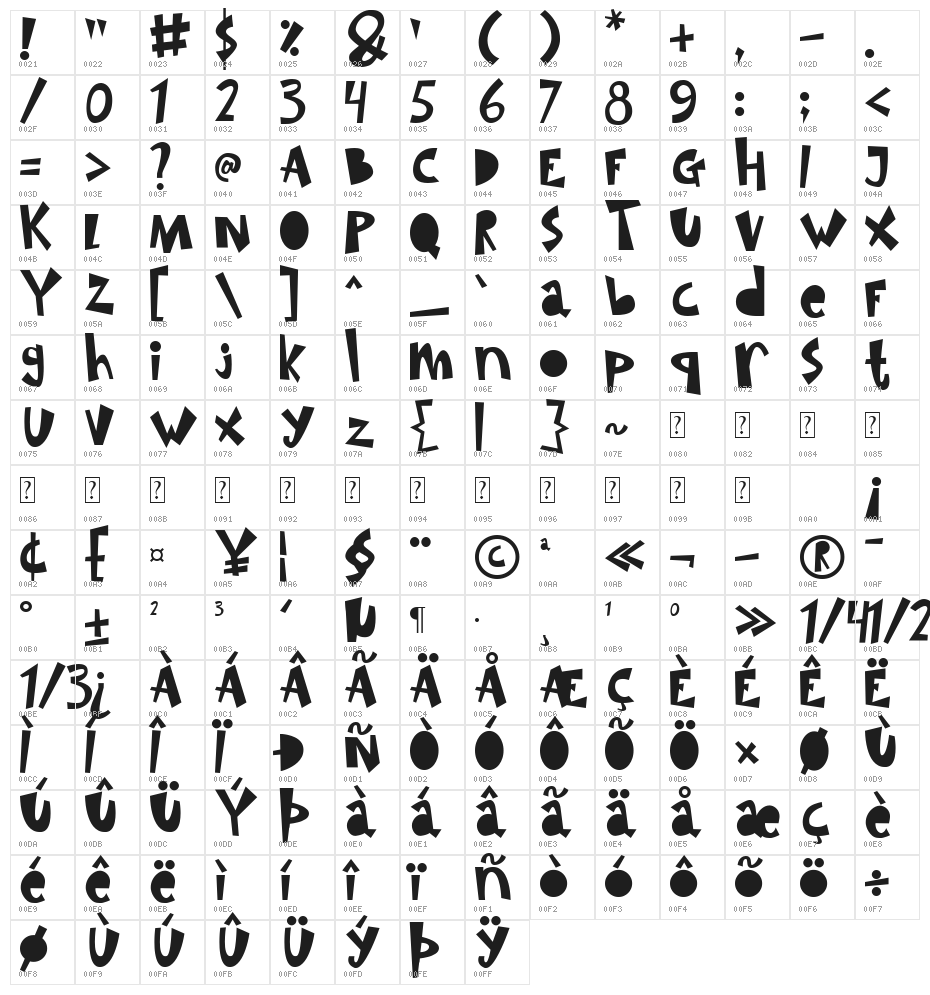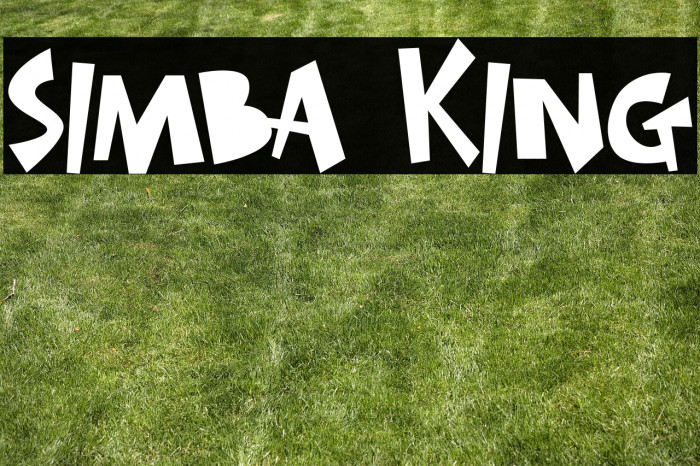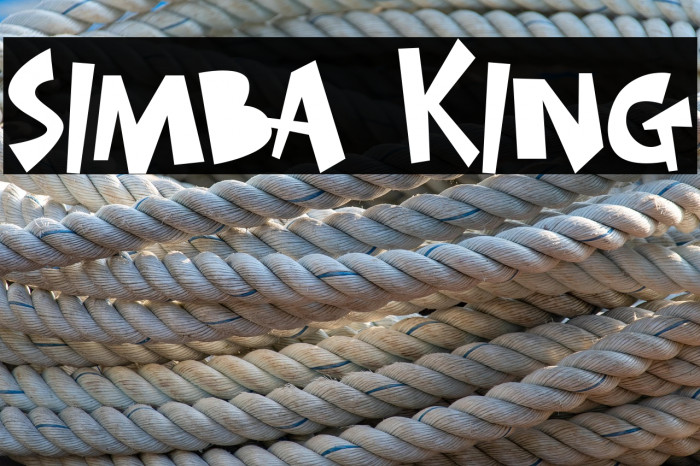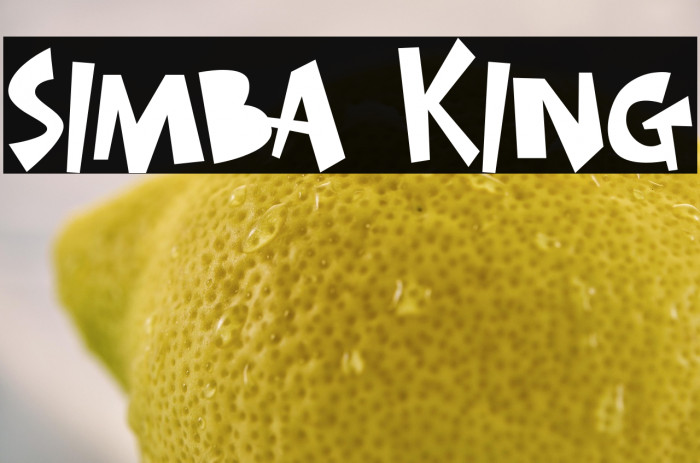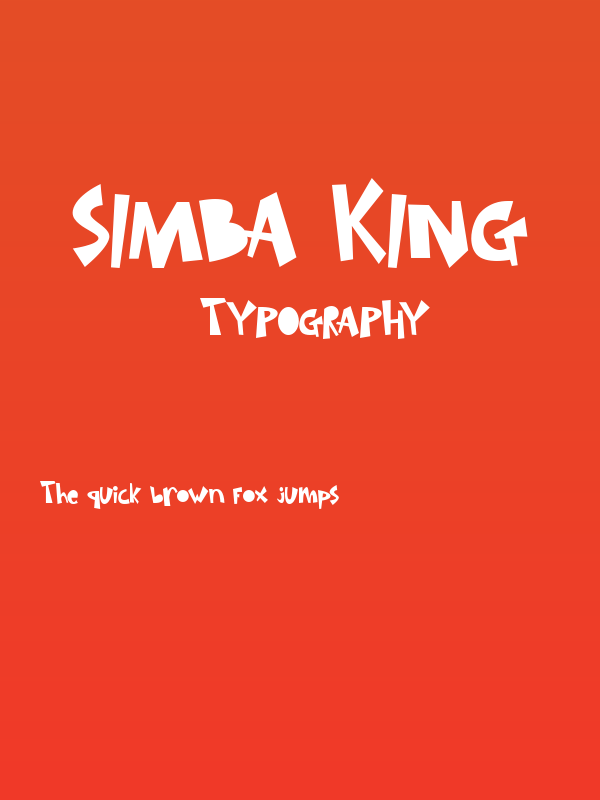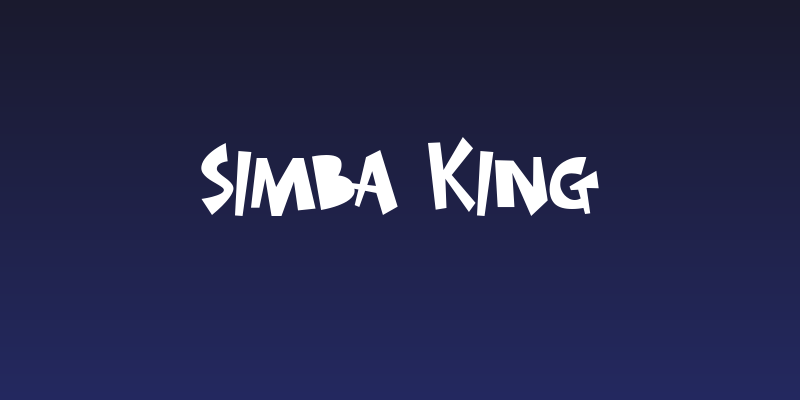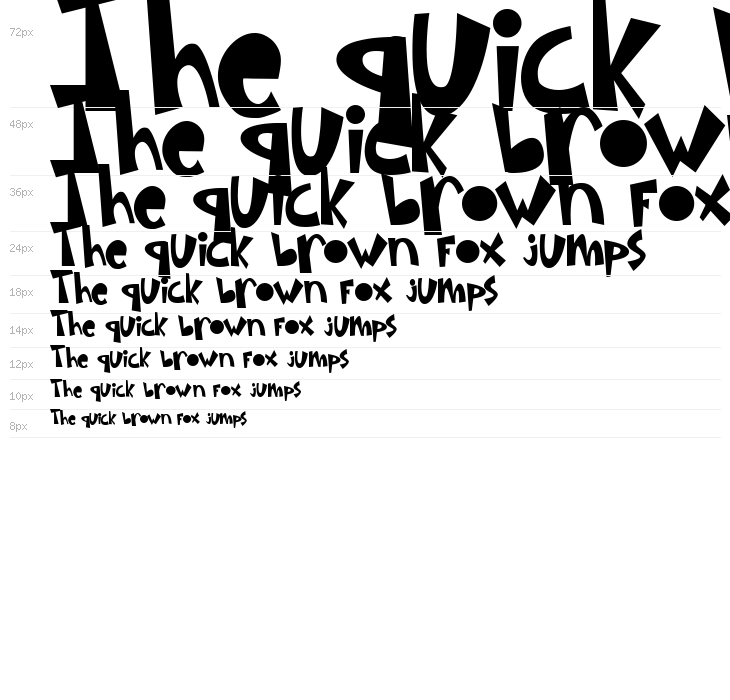
SIMBA KING Font
SIMBA KING Description
This playful and bold font features an energetic and whimsical style, characterized by its irregular and exaggerated letterforms. The uppercase letters exhibit a dynamic and lively appearance, with varying stroke thicknesses that add a sense of movement and fun. The lowercase letters maintain this playful aesthetic, with rounded edges and a slightly informal feel. Numbers and special characters are designed with the same quirky and animated style, making the font suitable for creative and informal applications. Its unique and eye-catching design makes it ideal for projects that require a touch of personality and flair.
| Overall Style | Playful, Whimsical, Energetic |
| Proposed Projects | Ideal for children's books, playful branding, party invitations, and creative posters. |